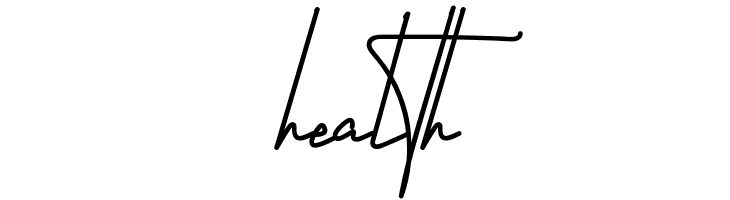
An elegant script font with flowing, cursive letterforms and luxurious swirls.
A modern handwritten font with fluid, elegant strokes and a personal touch.
An elegant, flowing script font with a handwritten signature style.
A cursive, signature-style font with elegant, flowing lines.
A fluid and graceful script font with a handwritten signature style.
An elegant, flowing script font with a natural handwritten style.
A flowing, elegant script font with a handwritten signature style.
An elegant, cursive font with a flowing, signature-like style.
A sophisticated, cursive handwritten font with a personal signature style.
A classic, elegant handwritten font with a vintage signature style.
A cursive, handwritten-style font with elegant, flowing strokes.
A graceful, cursive script font with a signature-like elegance.
A stylish, cursive handwritten font with a dynamic and elegant flair.
A flowing, cursive script font with an elegant, signature-like style.
An elegant, cursive font with a handwritten signature style.
A fluid, cursive handwritten font with a natural signature style.
A graceful and elegant script font with flowing, cursive letterforms.
A modern, handwritten font with a fluid and elegant style.
An elegant, cursive font with a signature-like style, perfect for sophisticated designs.
A graceful script font with a handwritten signature style.
A classic, elegant handwritten font with a vintage signature style.
A casual, handwritten font with an elegant, signature-like style.
A fluid, handwritten font with a signature-like elegance.
An elegant, flowing script font with thin, elongated strokes and graceful curves.
Elegant handwritten script font.
Elegant cursive handwritten font.
Elegant cursive script font.
Elegant handwritten signature font.
A casual, signature-style handwritten script with tall, thin letters.
Elegant, light script font with a handwritten signature style.